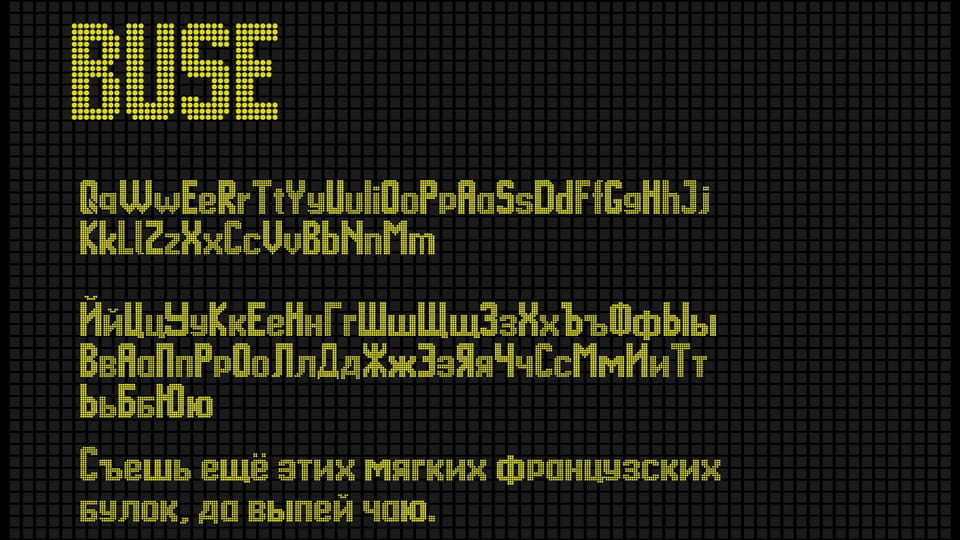
Download BUSE font, a pixel-based display typeface inspired by classic dot-matrix screens and electronic information boards. Built from a clear modular grid, it embraces a retro-digital aesthetic that feels both technical and nostalgic.
Designer: Daniił Jakowlew